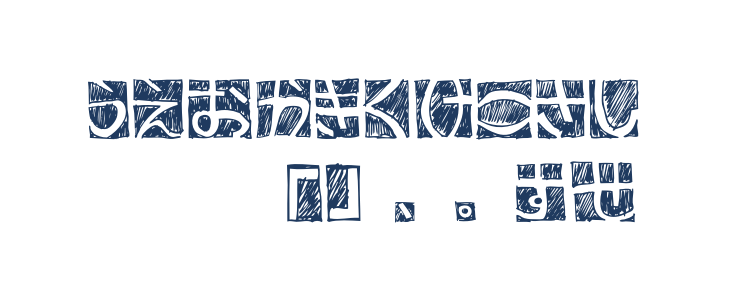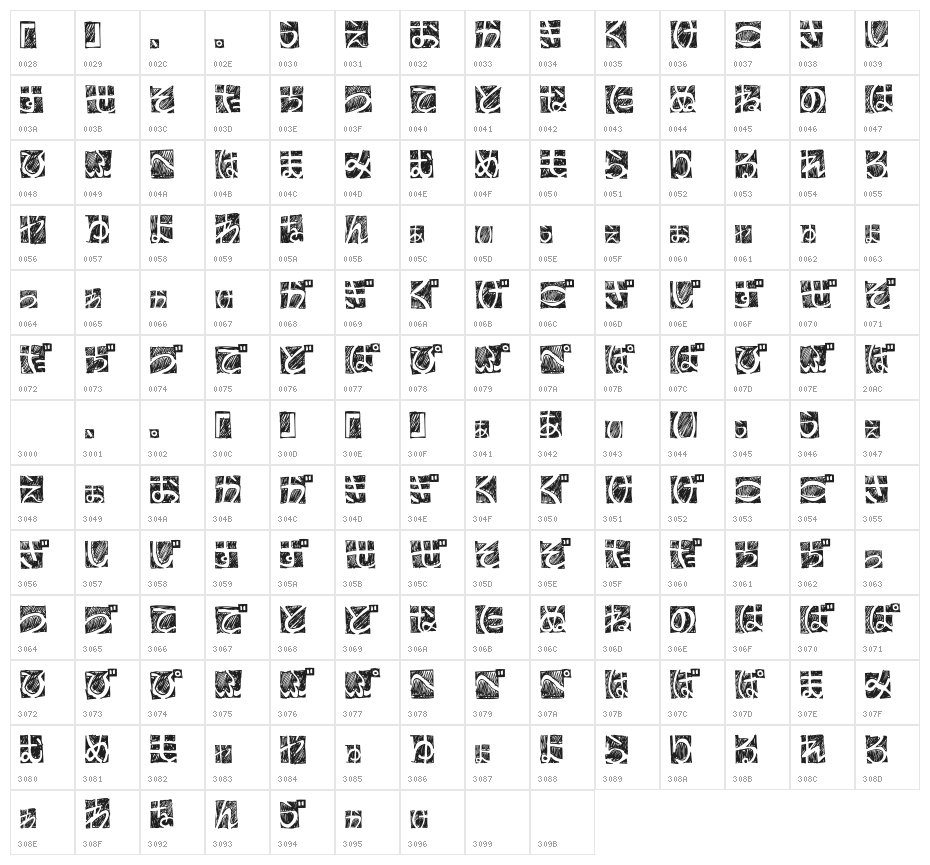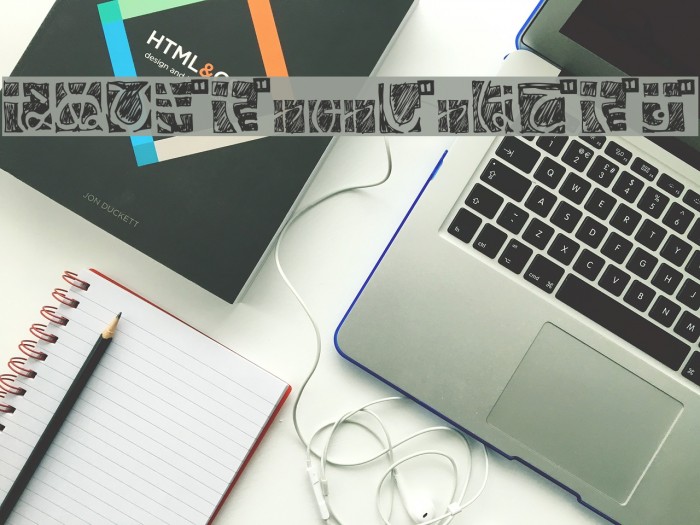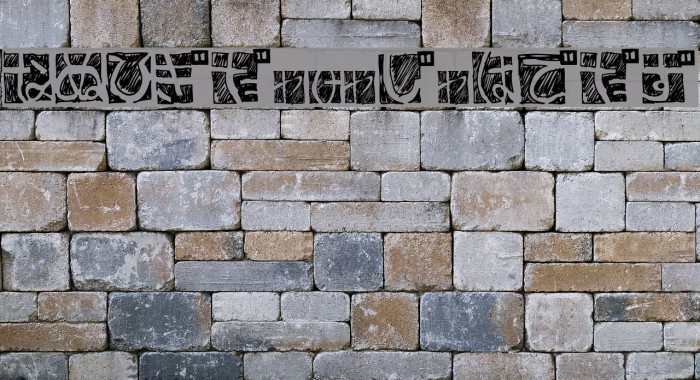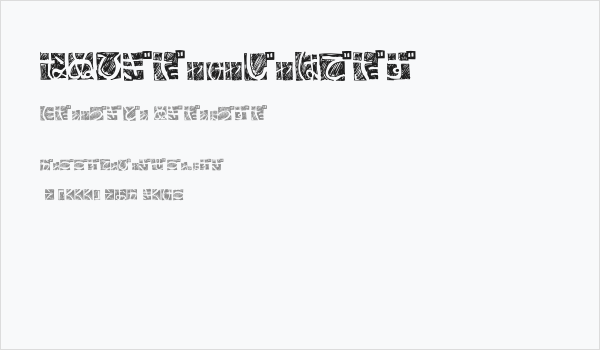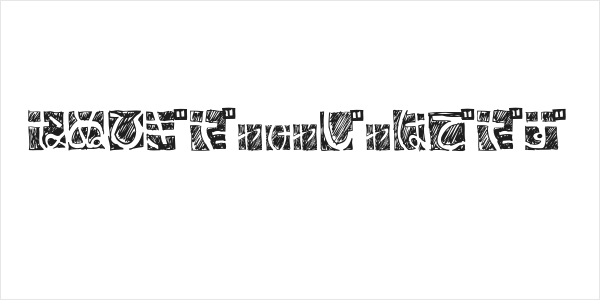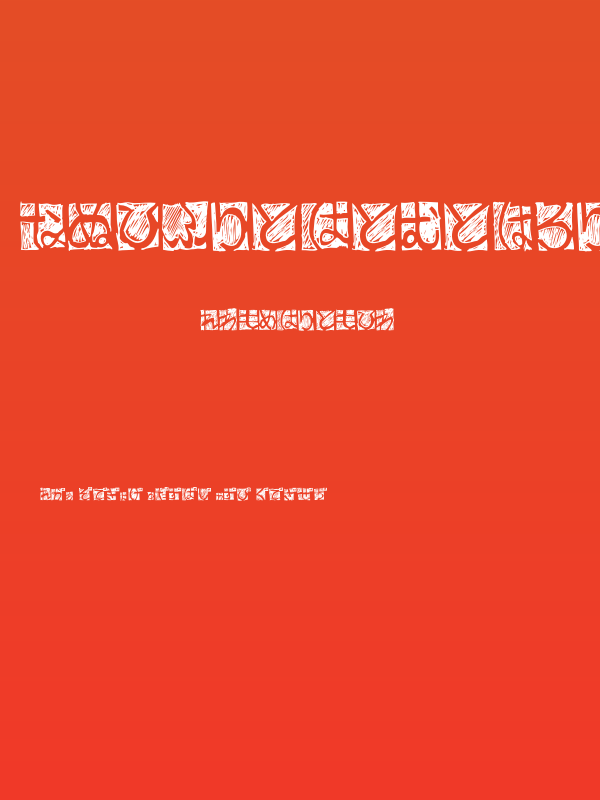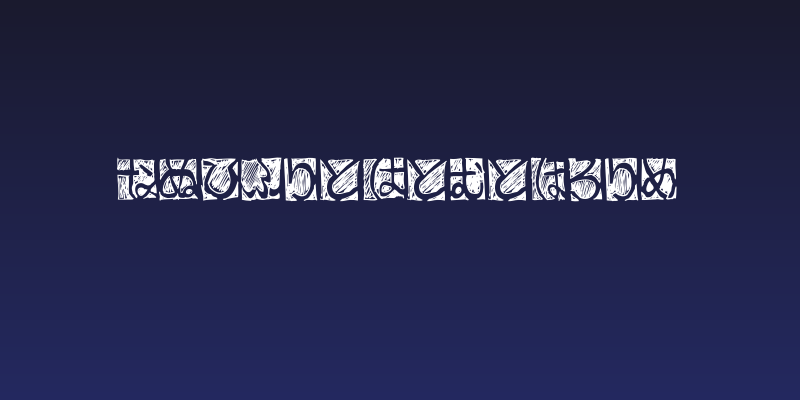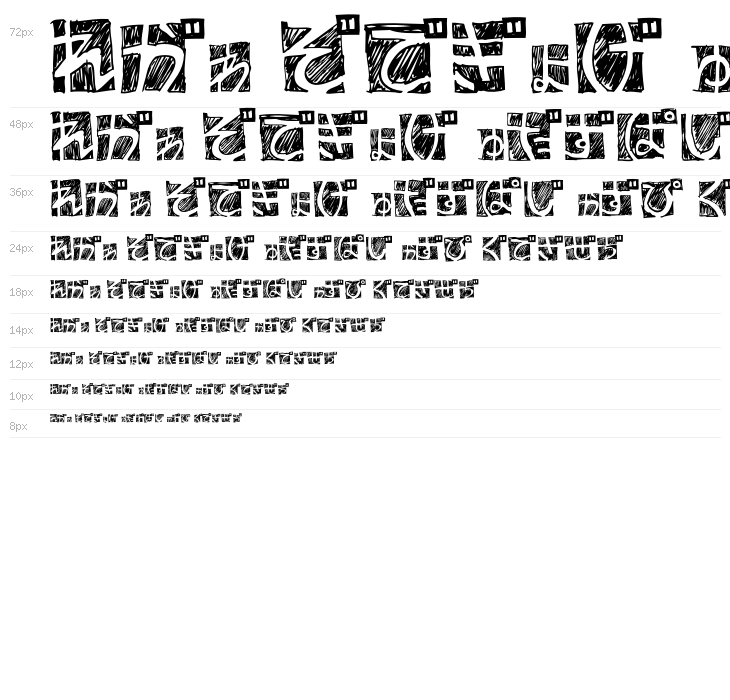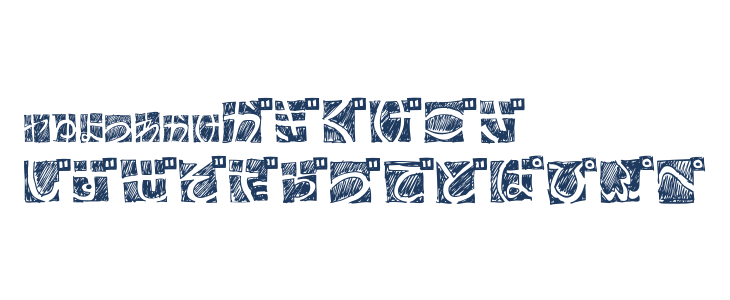
BDHiraganaKuro Font
BDHiraganaKuro Description
This font features a highly decorative and artistic style, characterized by intricate patterns and bold, black strokes. Each character is uniquely designed with a combination of geometric shapes and abstract forms, creating a visually striking appearance. The font's design is reminiscent of traditional Japanese art, with a modern twist that incorporates elements of graffiti and street art. The characters are densely packed with details, making them ideal for creating eye-catching headlines or artistic displays. The overall aesthetic is both playful and sophisticated, offering a unique blend of cultural influences and contemporary design.
| Proposed Projects | Ideal for artistic posters, cultural event promotions, unique branding projects, and creative digital artwork. |